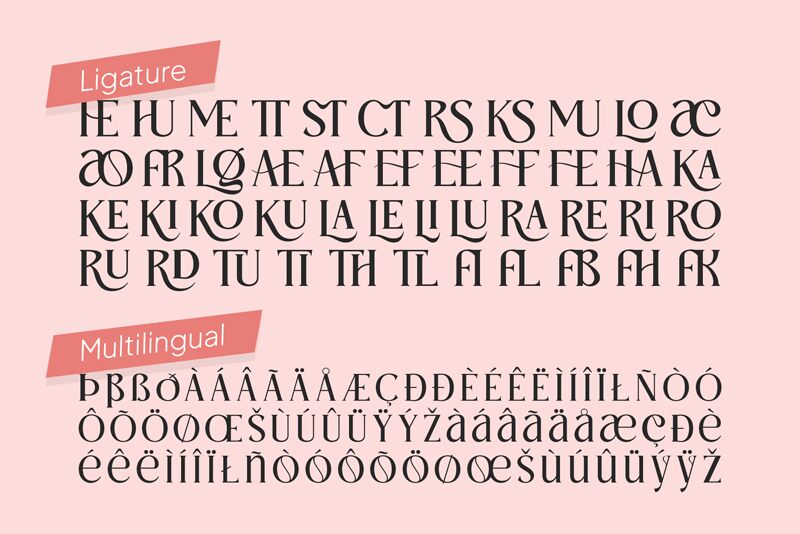
Anger font by VampStudio is an elegant and distinctive addition to the world of type design. This artistic serif font exhibits a sophisticated and expressive style that can transform any project. The letterforms feel inviting, warm, and especially suitable for designers who want to make a statement with their text.
Use this free serif font in websites, business cards, presentations, book titles, greeting cards, invitations, and flyers. It’s also perfect for stickers/labels designs or creating lovely prints on clothes or posters. Anger is truly distinguished in various digital spaces like social media ads or content too.